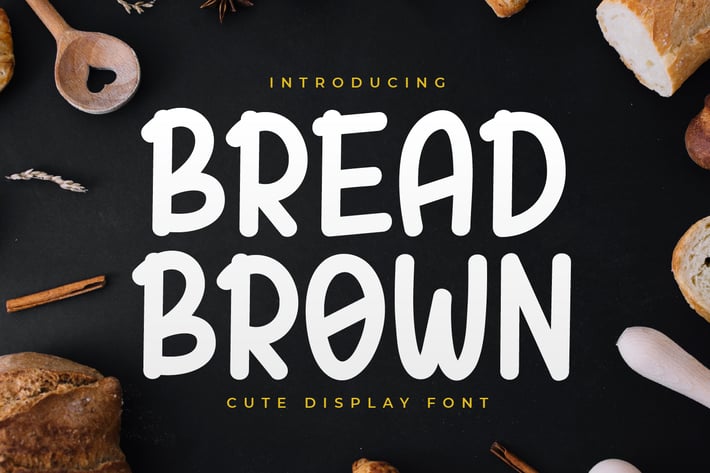
Bread Brown - Display Handwriting Font
Introducing Bread Brown - Display Handwriting Font
Bread Brown is a unique and interesting display font. Incredibly versatile, this font will fit a wide pool of designs.
This font is perfect for quotes, shirt designs, websites, branding, children’s designs, blogs, logos, invitations, and more!